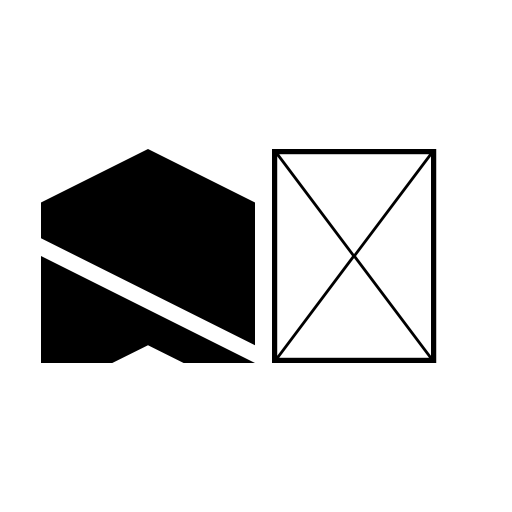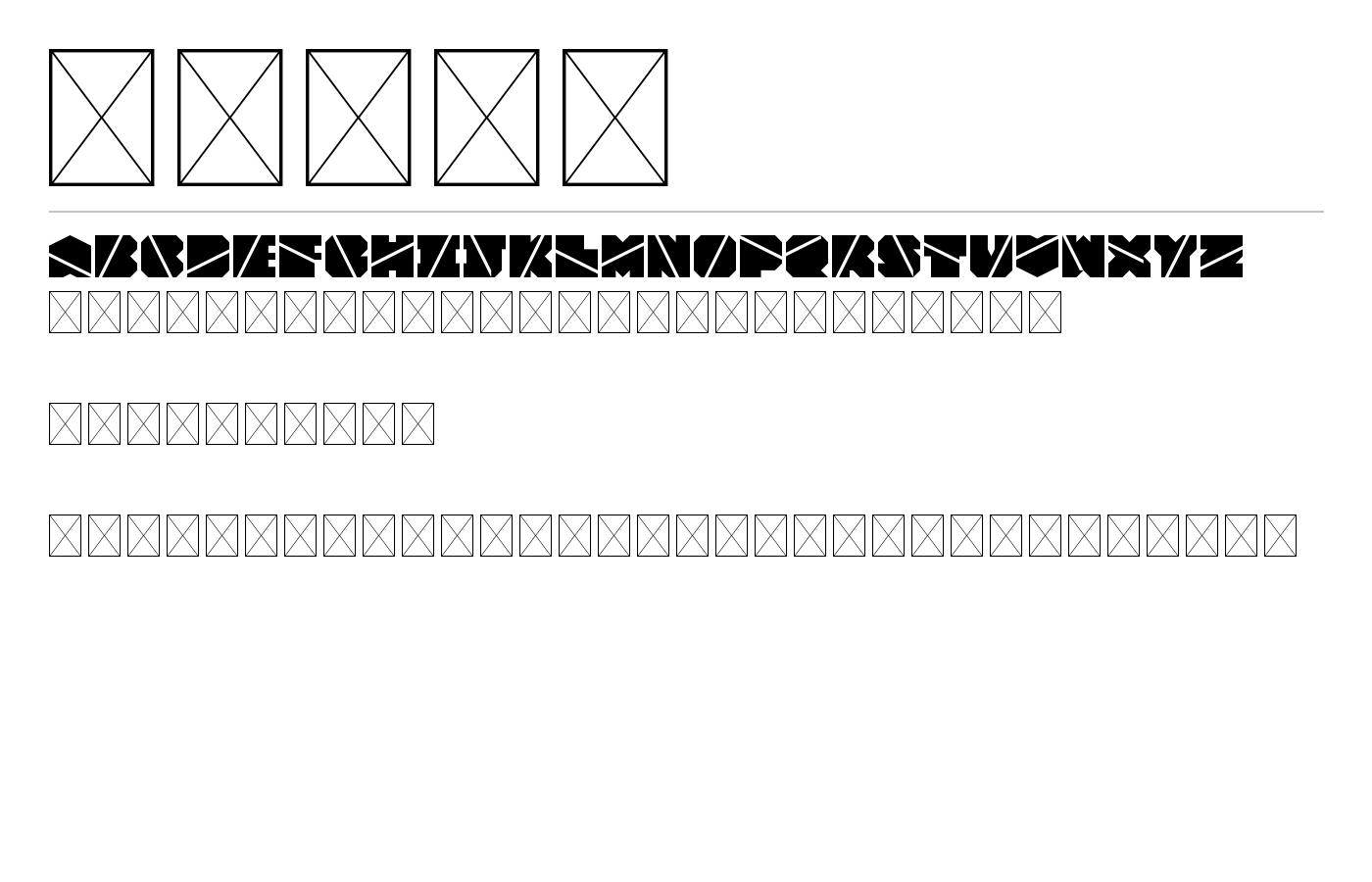
Block Font is a bold, geometric sans serif typeface characterized by its solid, heavy weight and tightly packed letterforms. The strong angular cuts and sharp edges create a striking, industrial feel, making it ideal for impactful headlines, logos, and modern editorial designs where a confident, futuristic look is desired. Its dense, compact style enhances visibility and commands attention, perfect for branding that aims to stand out boldly.
block Font
About block Font